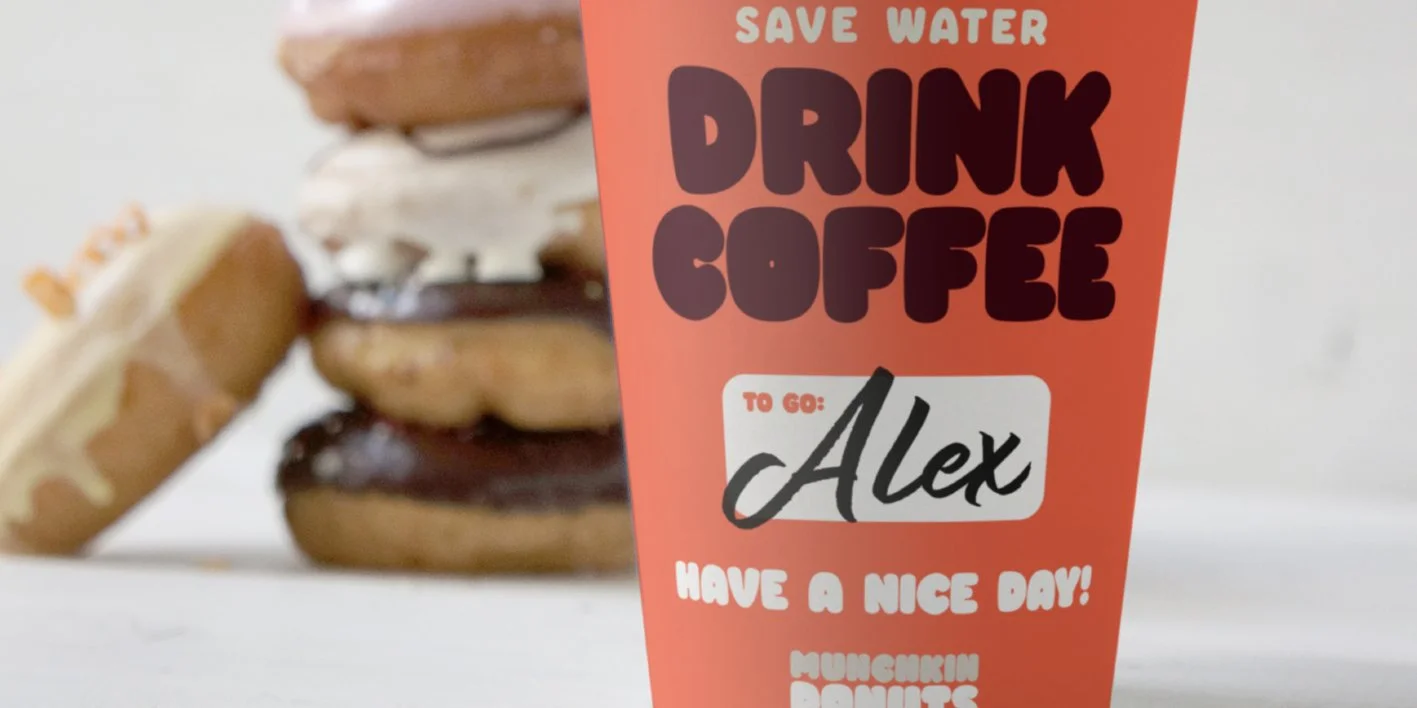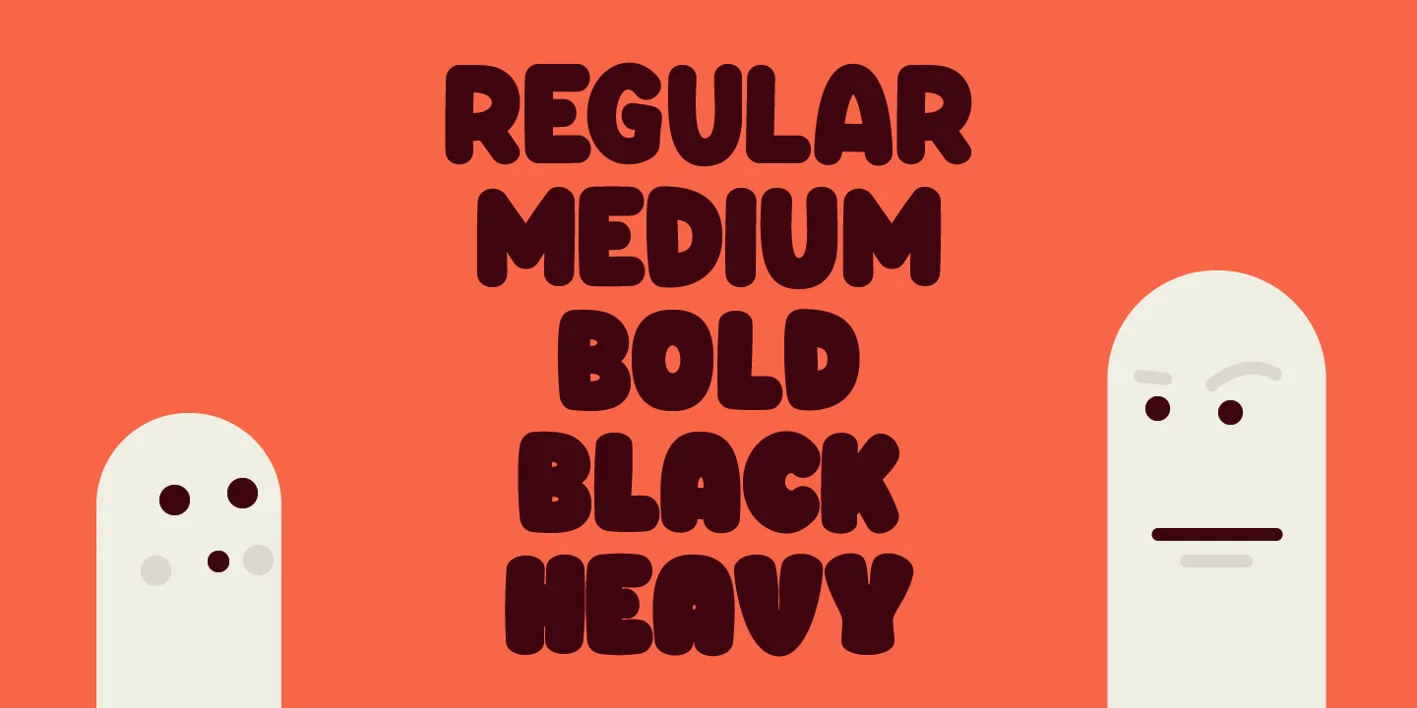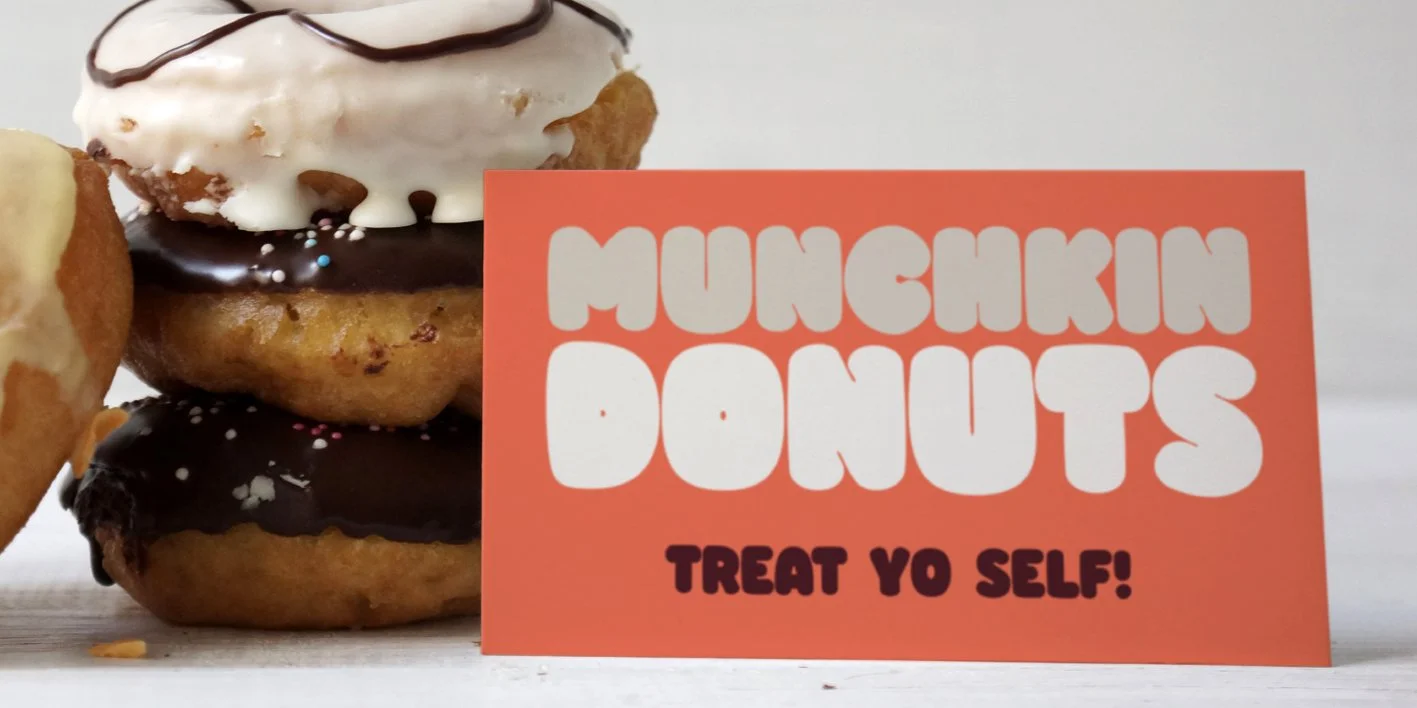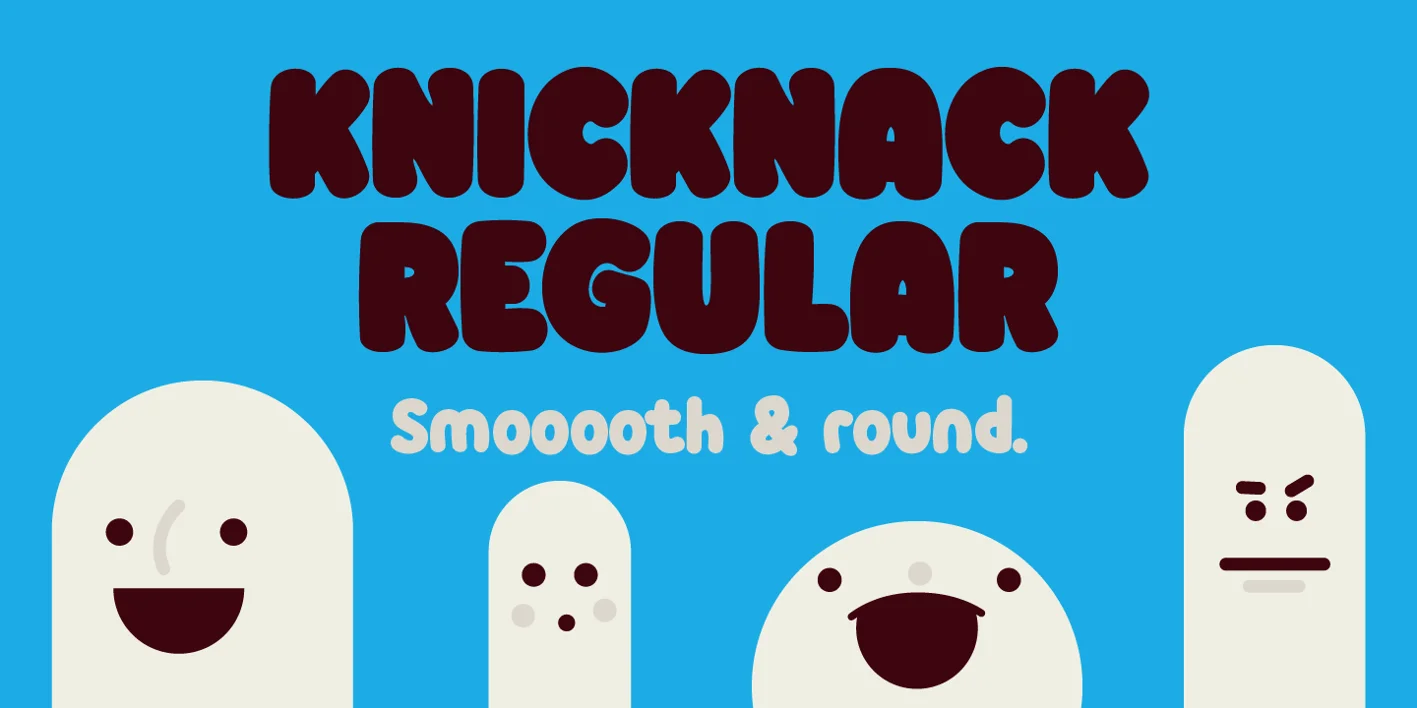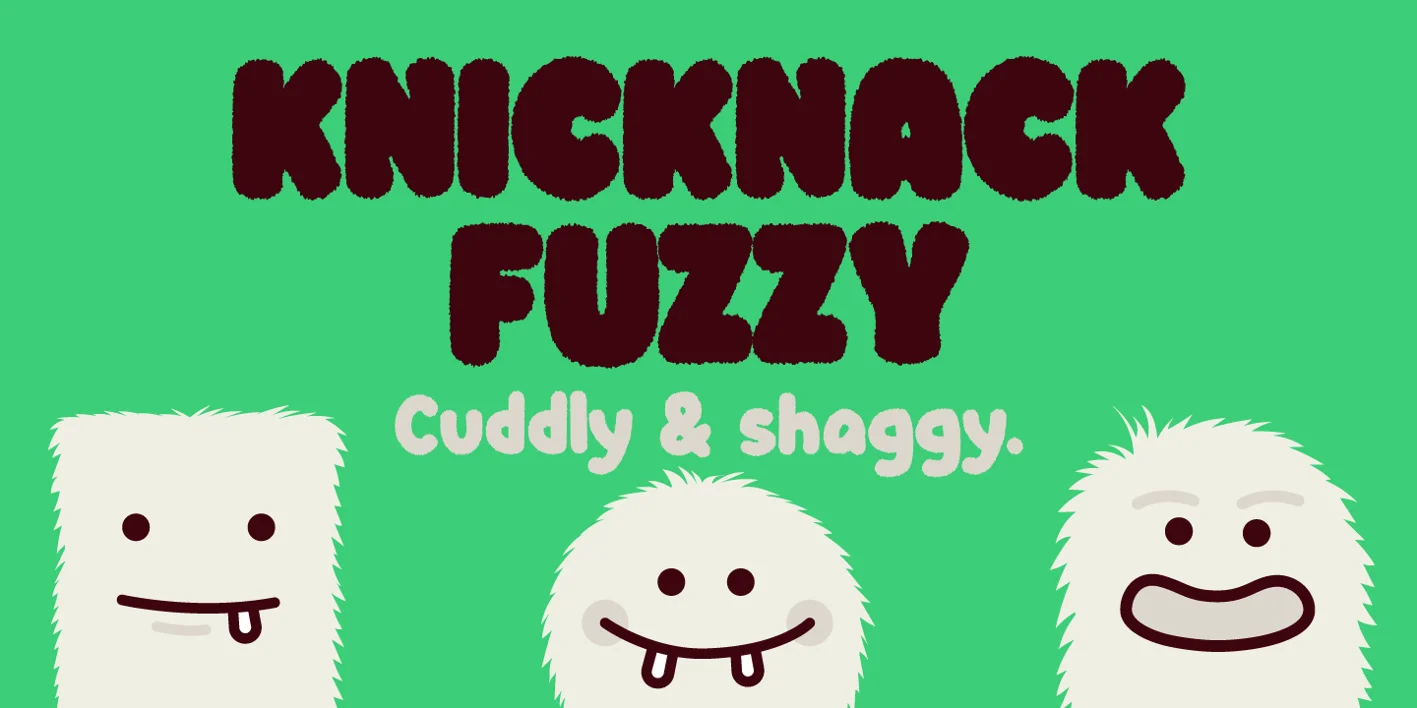
KNICKNACK Font
The KNICKNACK is a versatile typeface crafted for designers who demand both versatility and character. Whether you are working on a personal project or a high-profile commercial brief, this font delivers harmonious character relationships that enhance readability.
This KNICKNACK is an excellent choice for advertising campaigns, social media graphics, web design, product labels, event materials. Its carefully considered design makes it equally effective for print and digital media, ensuring your message lands with impact regardless of the medium.
What distinguishes KNICKNACK is its outstanding visual balance and proportion. The typeface was developed with the modern designer in mind, balancing aesthetic appeal with functional performance across a wide range of creative applications including branding projects, editorial layouts, poster creation.
The KNICKNACK family ships with regular and bold cuts with italic companions, giving you full control over typographic hierarchy. Every weight has been individually optimised to maintain consistent stroke contrast and spatial harmony throughout the entire family.
Freelance designers and agency professionals consistently choose KNICKNACK when projects demand authentic typographic character and reliable performance. The font's distinctive design language immediately elevates brand communications and creative compositions, making it a valuable addition to any professional typeface library.
Technical precision is at the heart of KNICKNACK . The letterforms have been drawn with meticulous attention to curve quality, optical sizing, and inter-character spacing, resulting in typography that reads effortlessly at display sizes and remains crisp in body copy applications.